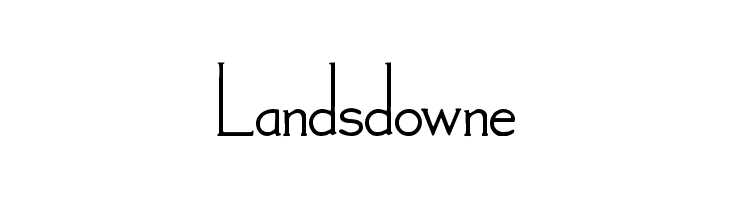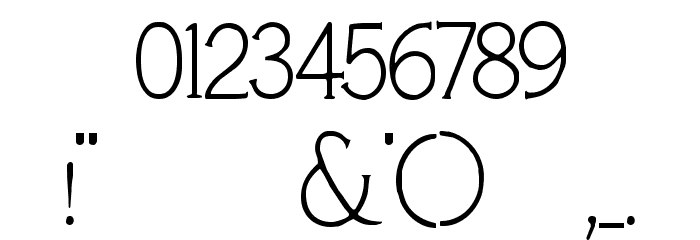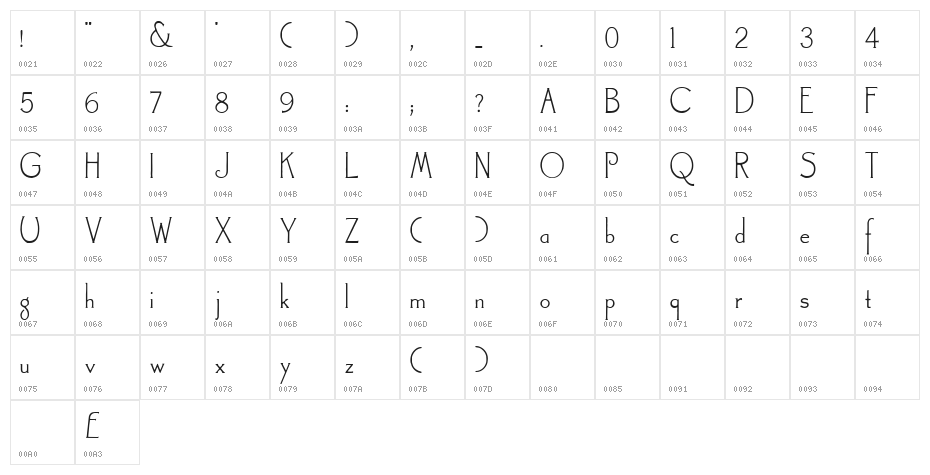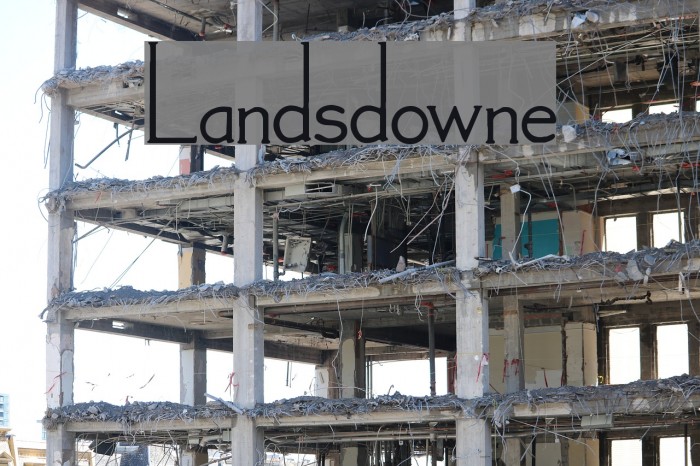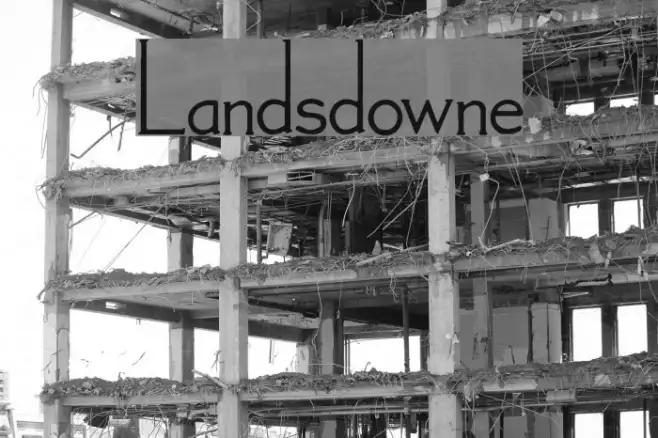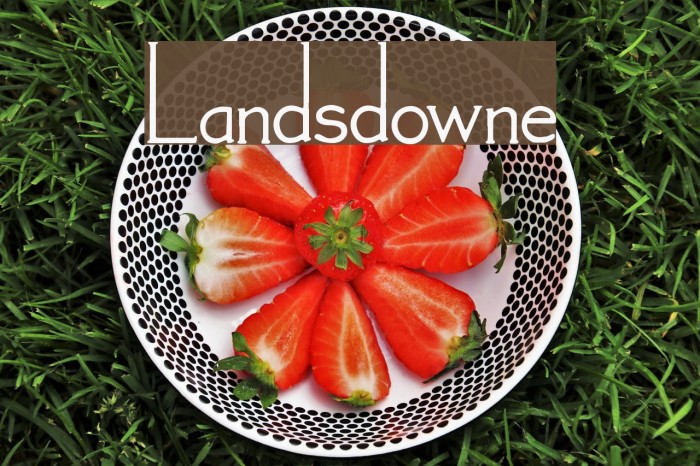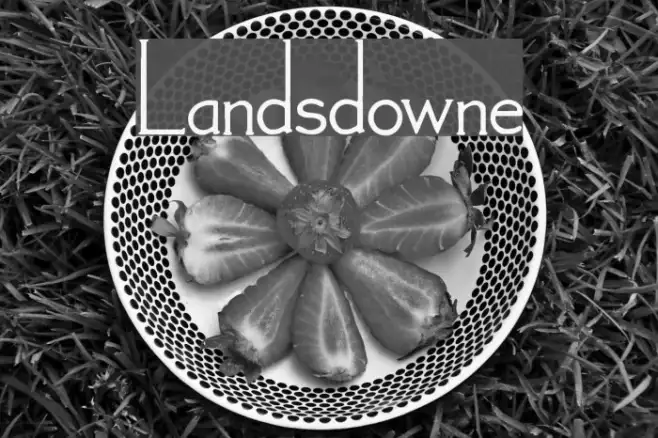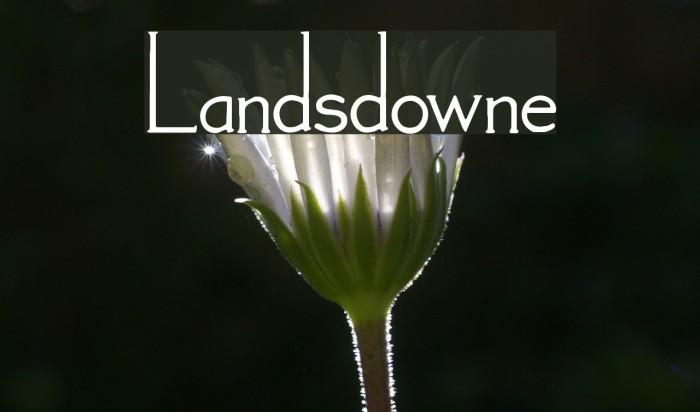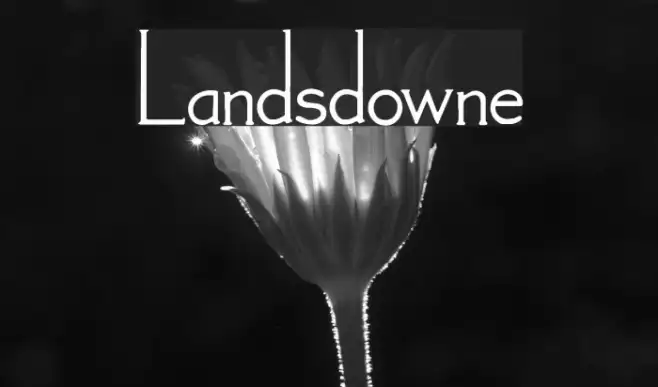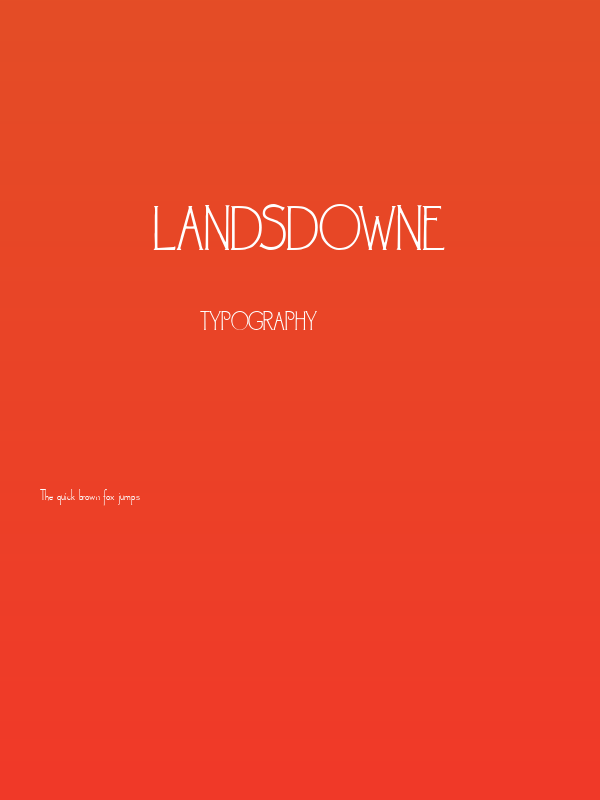
Landsdowne Font
Landsdowne Description
This font exhibits a unique blend of elegance and modernity, characterized by its tall, slender letterforms and subtle curves. The uppercase letters are particularly striking, with a distinct art deco influence that adds a touch of sophistication. The lowercase letters maintain a consistent style, featuring gentle curves and a slightly whimsical flair, especially noticeable in letters like 'g' and 'y'. The numerals are clean and easy to read, complementing the overall aesthetic. Special characters are thoughtfully designed, maintaining the font's cohesive look. This font's refined style makes it suitable for a variety of applications, from branding to editorial design.
| Proposed Projects | Ideal for branding, editorial design, invitations, and luxury product packaging. |